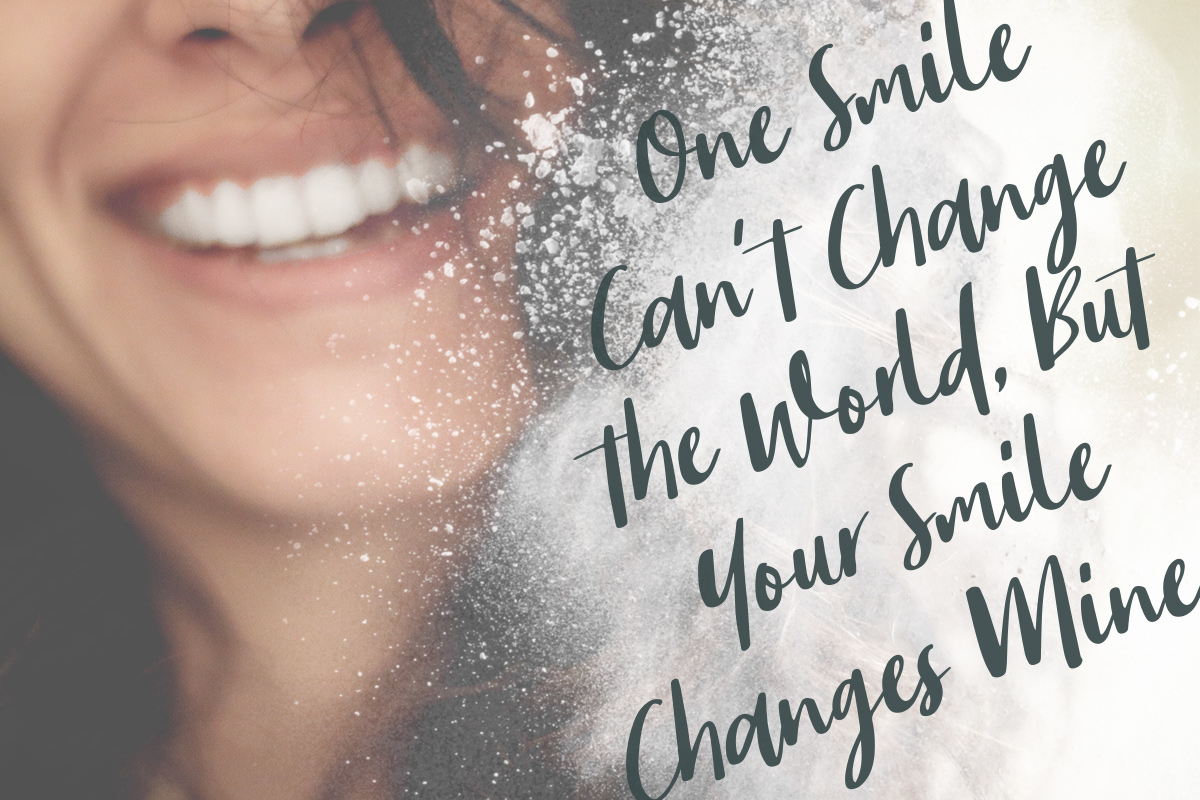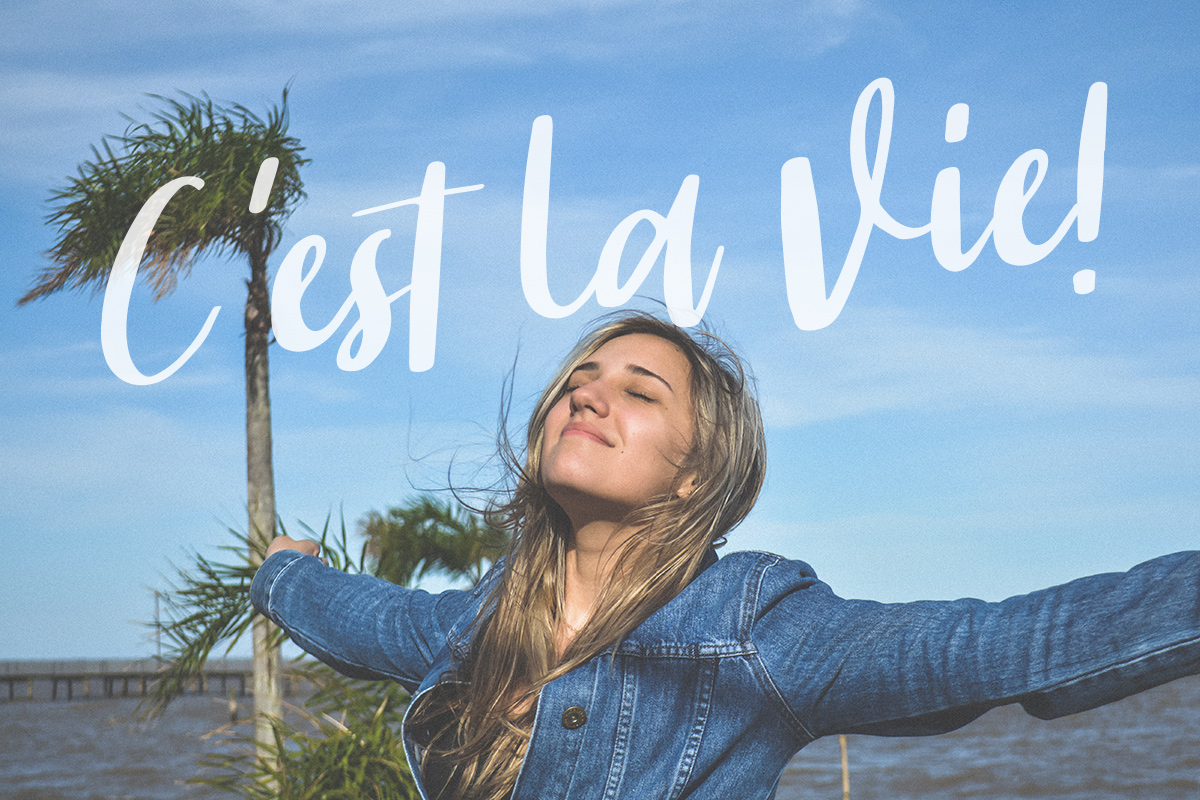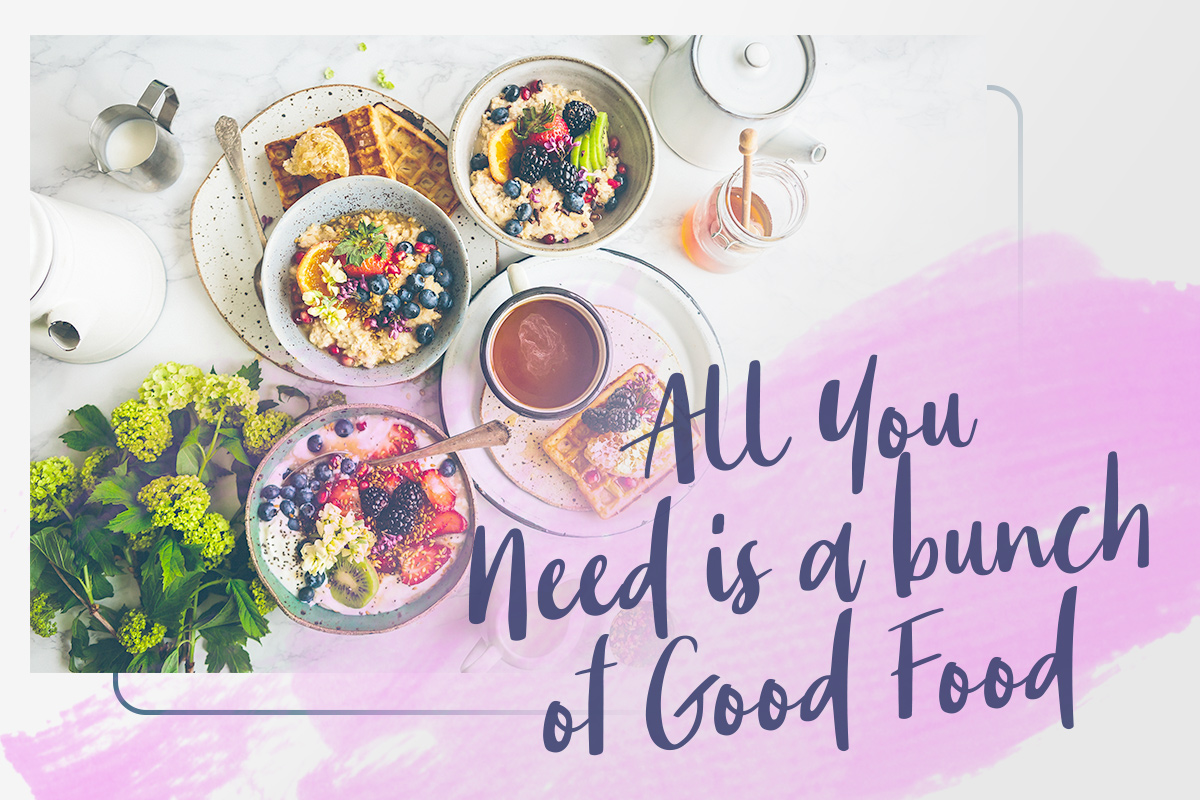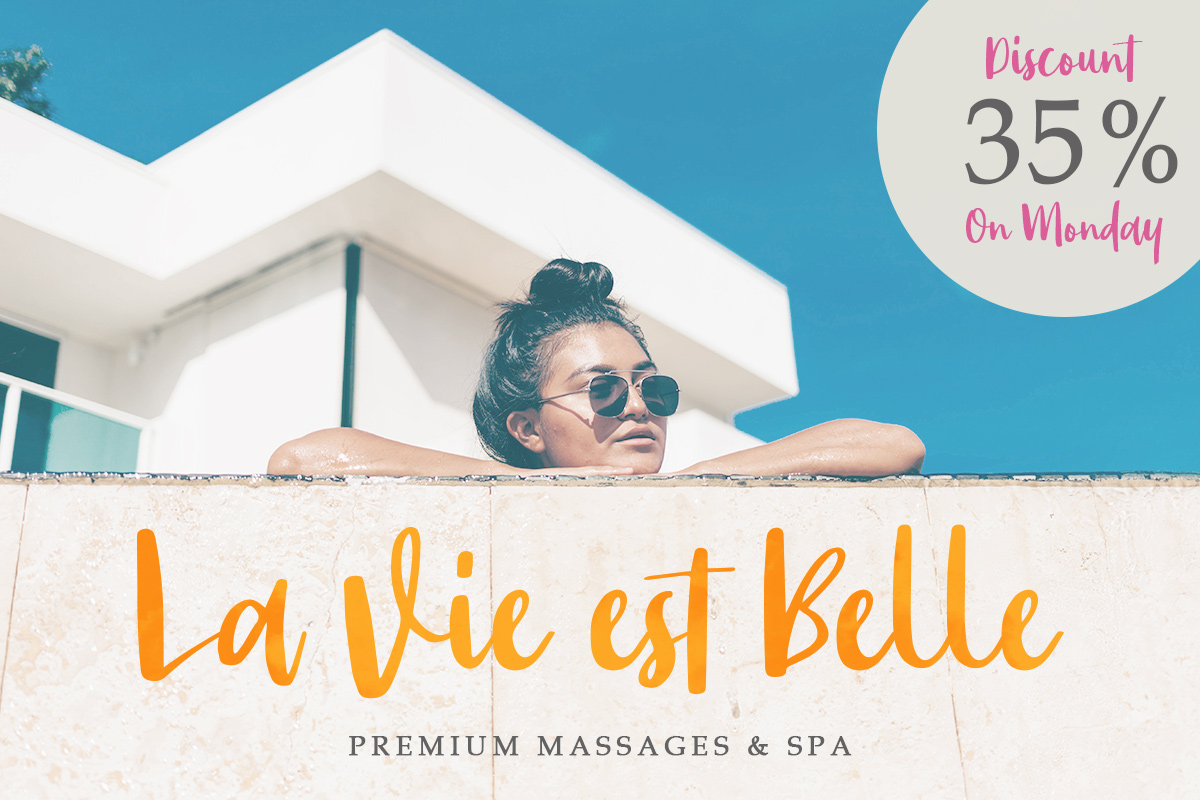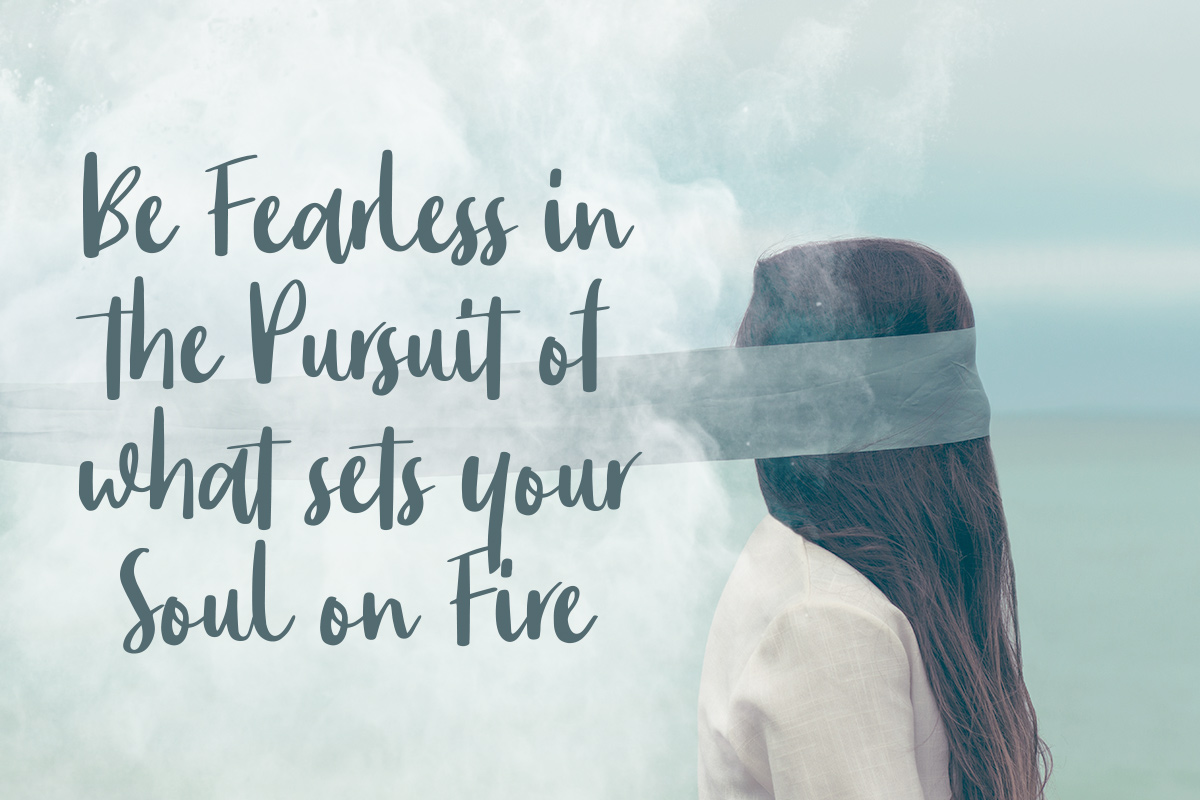
Need something fresh from your fonts? Take a look at Monday Bay created by Letterhend Studio. This optimistic font is perfect for T-shirts, logos, invitations, posters, branding and much more!